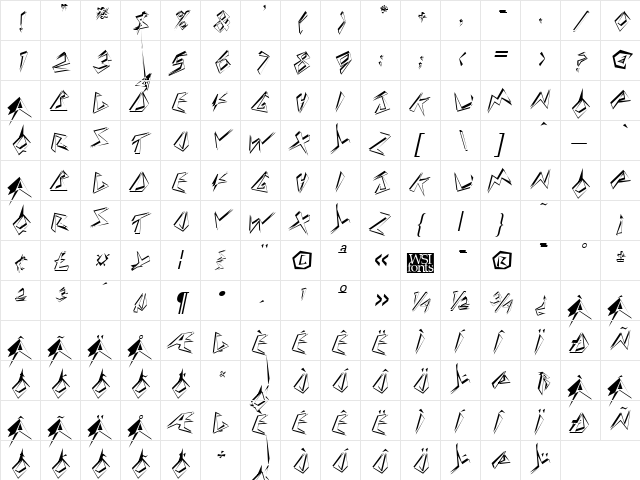
StingerShadowSkewed Regular
Design Context for StingerShadowSkewed Typeface
StingerShadowSkewed brings ornamental detail and strong personality to headlines and identities, where visual impact matters more than quiet functionality.
Font Pairing: Pair with a clean neutral sans-serif for body copy to let StingerShadowSkewed's character lead without overwhelming the composition.
Pro Tip: Treat StingerShadowSkewed as the centrepiece of your typographic hierarchy. One strong heading set in a decorative face can carry an entire layout.